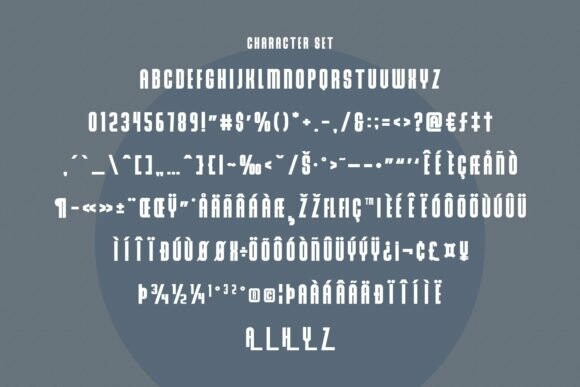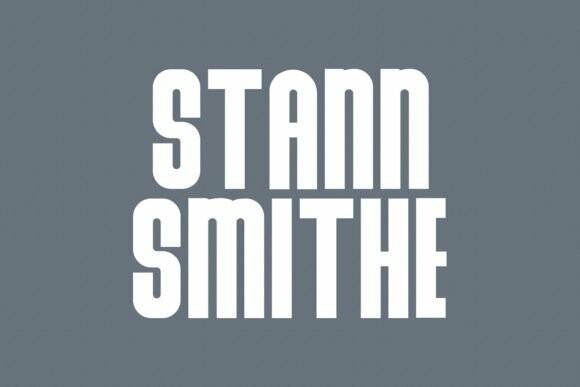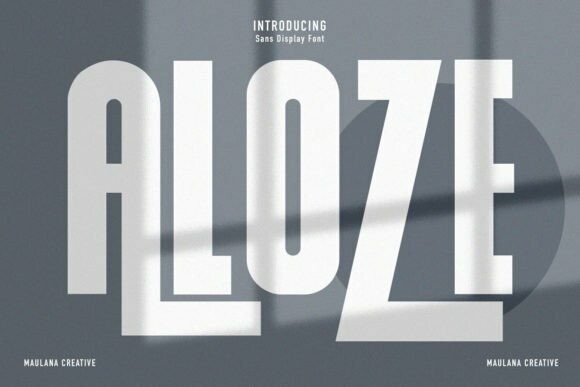
Aloze Font
Designer: Maulana Creative
Aloze Font – Sans Display is a clean and modern font. It’s easy to read and looks stylish, making it great for titles and headlines. The letters are sleek and elegant, perfect for making text stand out.